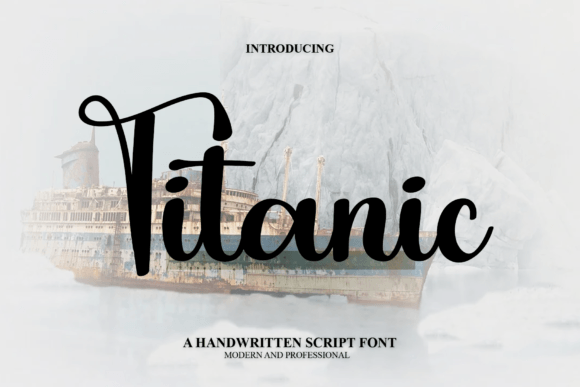
Step into the realm of timeless elegance with Titanic Font, a mesmerizing script font that will leave an enduring impression on your creative endeavors. Inspired by the grand and romantic era of transatlantic voyages, this font embodies the allure of the open sea and the spirit of exploration.
Crafted with meticulous care, Titanic Font features a captivating array of round-lettered characters that dance across the page with effortless grace. Its flowing lines and subtle curves evoke a sense of nostalgia and charm, while its versatility empowers you to bring your creative visions to life with unparalleled sophistication.
Whether you're designing bespoke shirts, crafting heartfelt invitations, or penning enchanting letters, Titanic Font will elevate your words to a new level of beauty and impact. Its timeless appeal transcends any era, making it an indispensable tool for designers, calligraphers, and wordsmiths alike.
Embark on a creative journey with Titanic Font and experience the thrill of transforming your ordinary designs into extraordinary masterpieces. Let its elegant presence guide your hand as you create works of art that will captivate and inspire for generations to come.